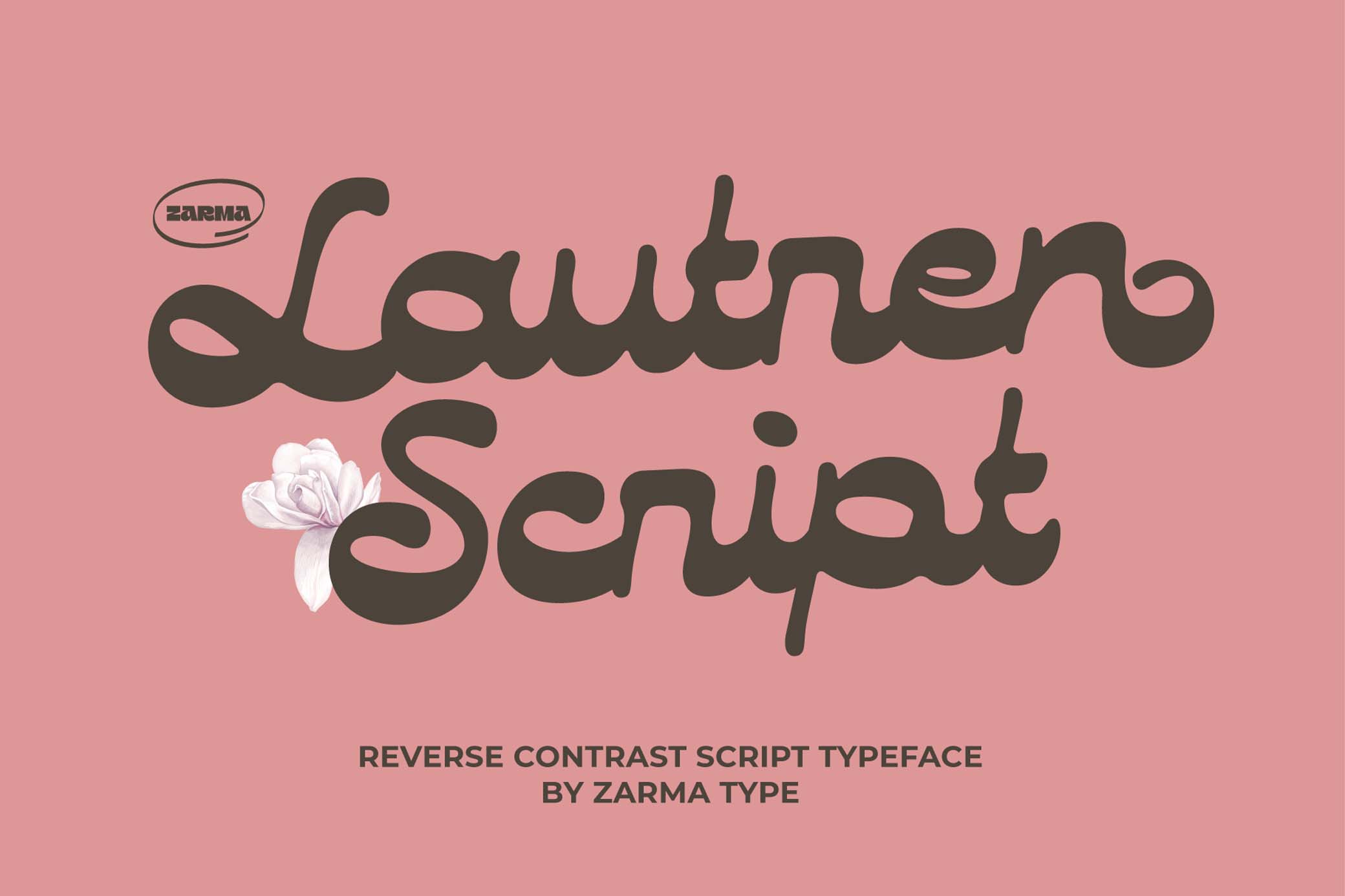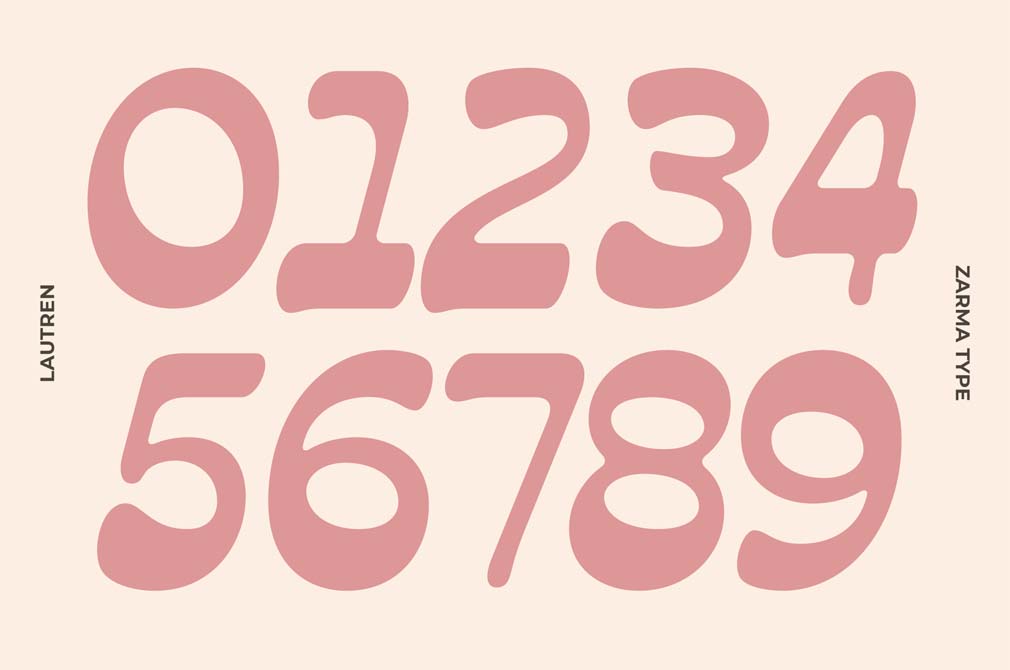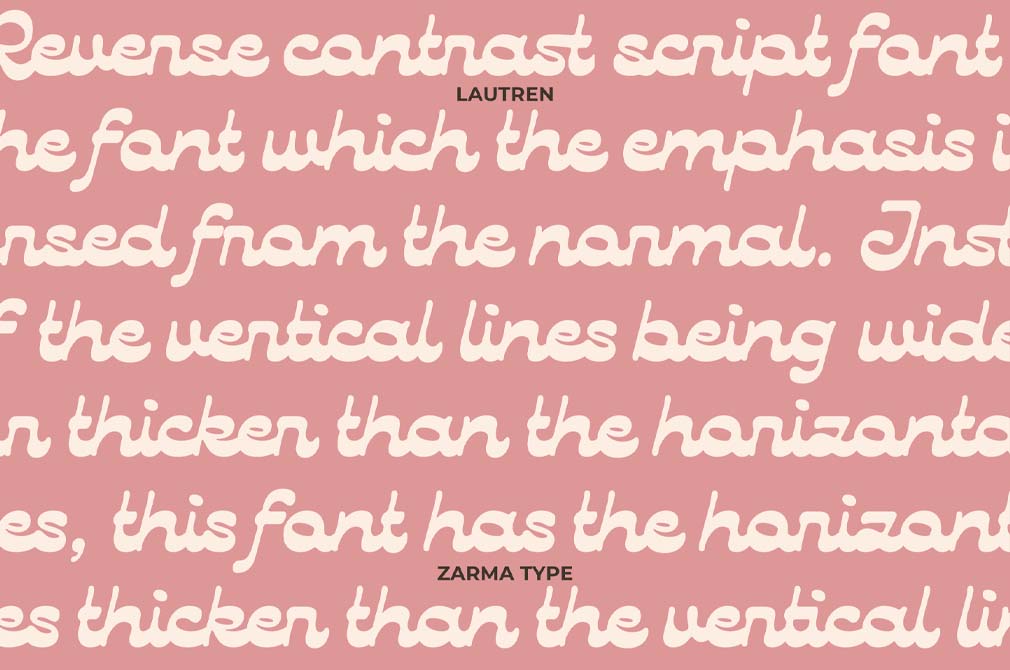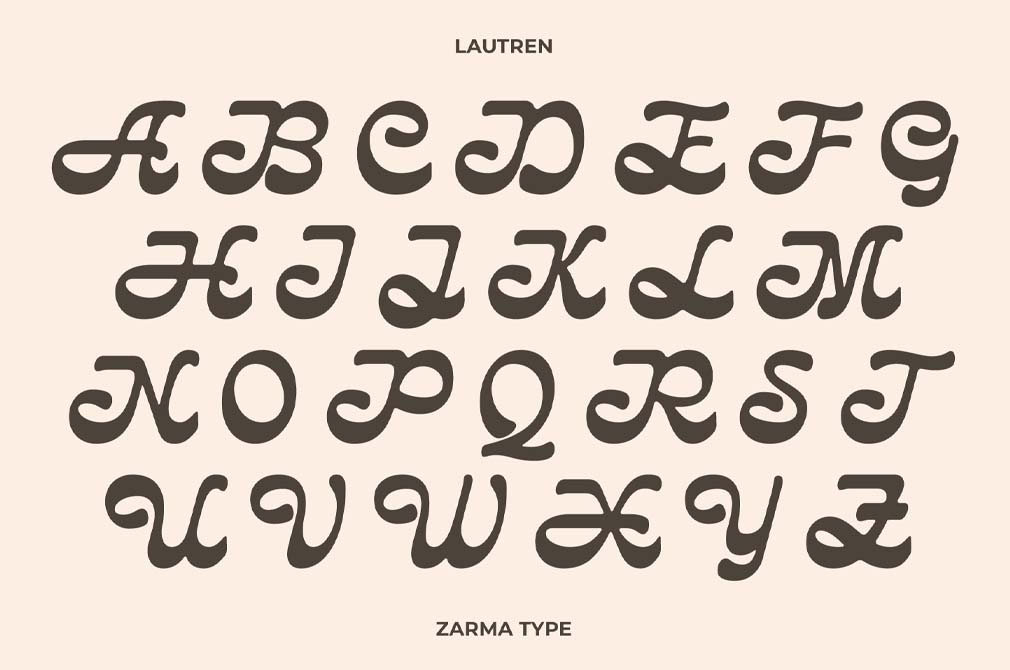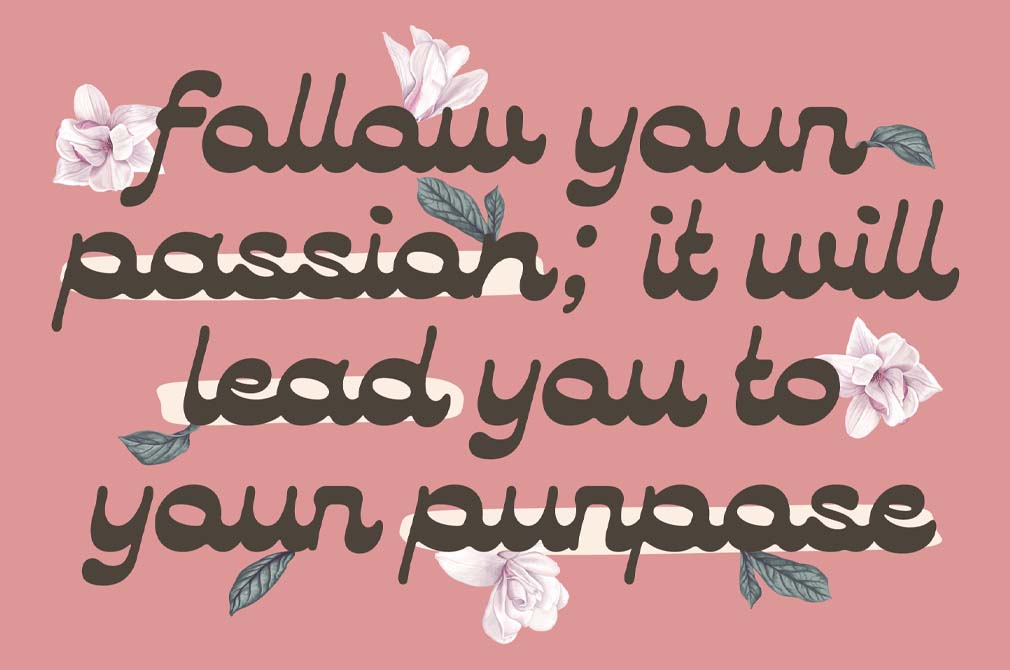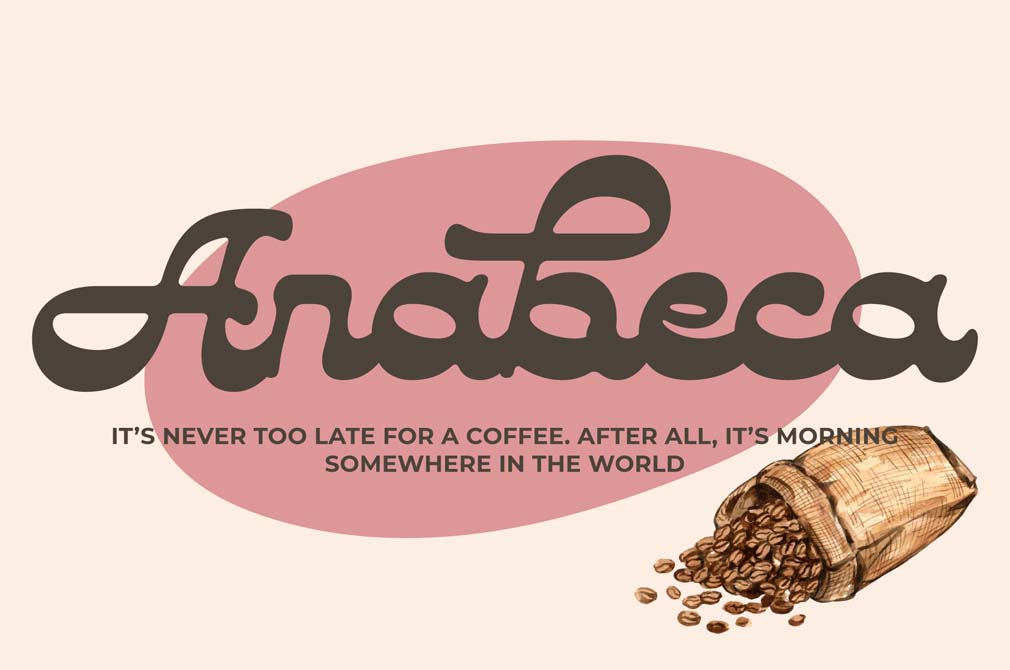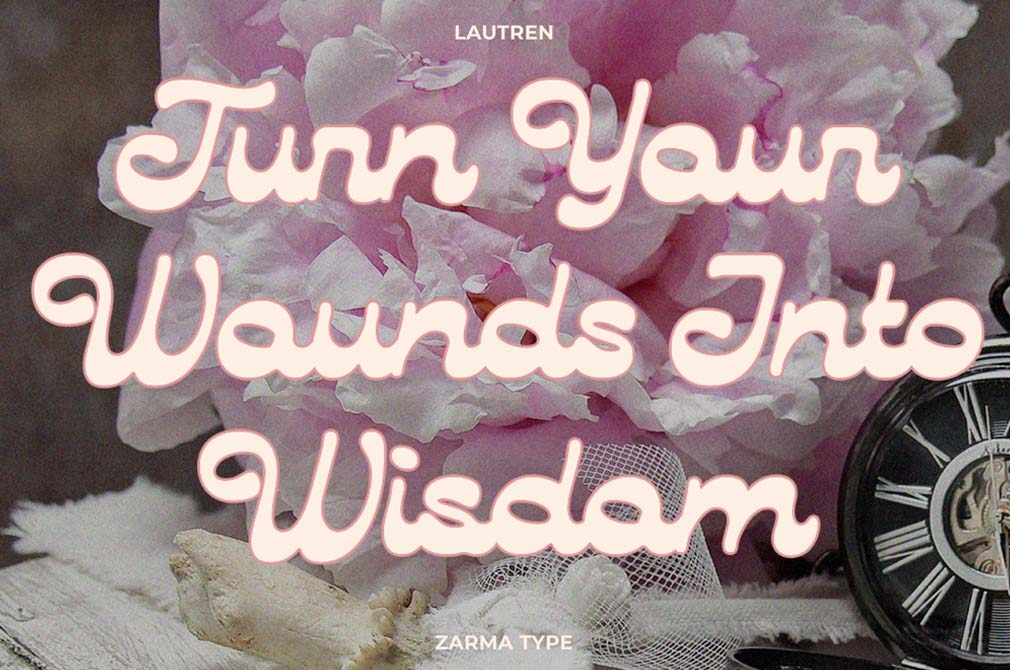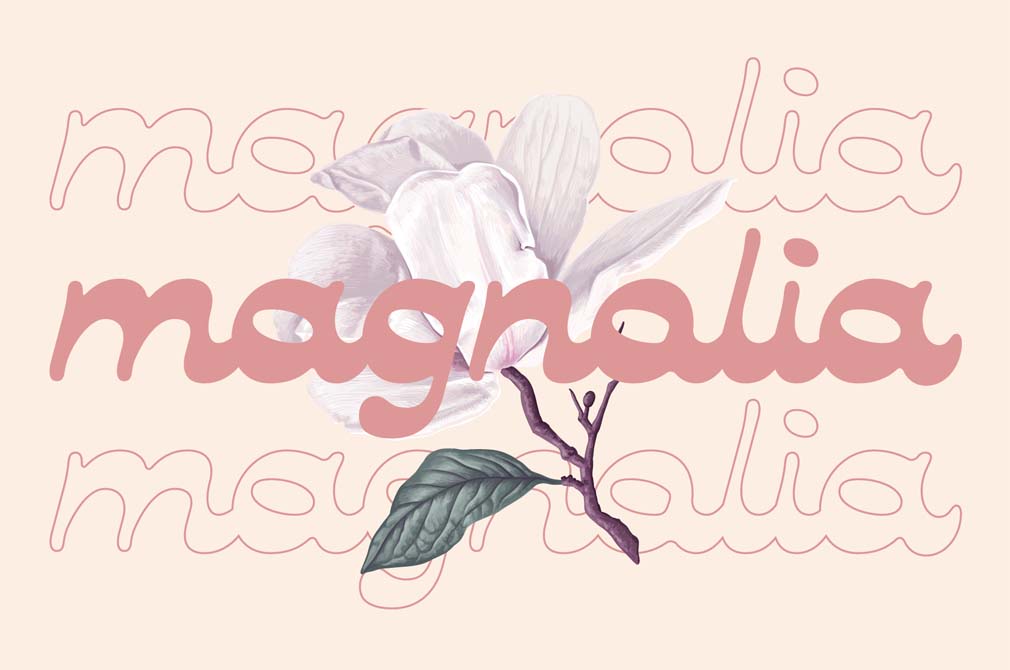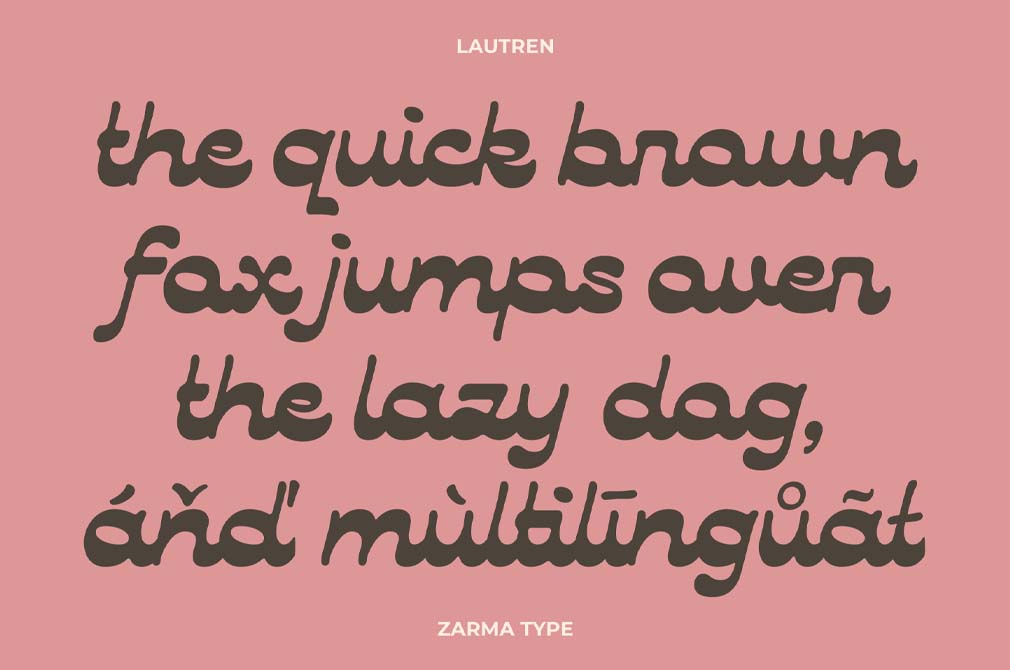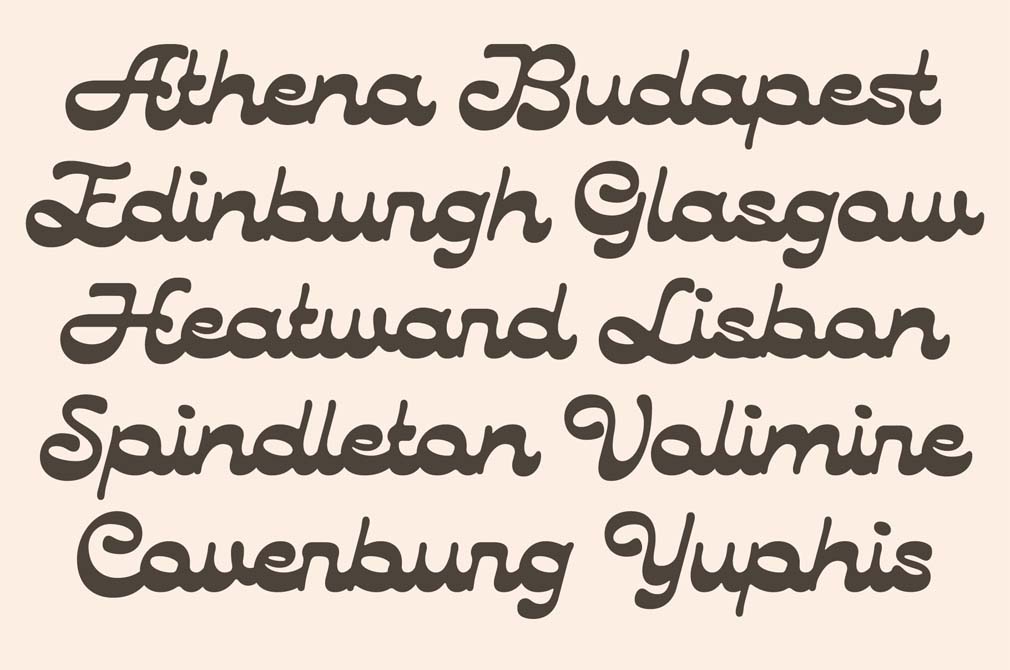
Lautren | Reverse Contrast Script
While everyone's trying to catch the Y2K wave, let's submerge ourselves in deeper retro typography with Lautren. It borrows some of the 50s aesthetics, sprinkles it with clean shapes of technical lettering, and adds some romance as a final touch.
It's not the best idea to merge multiple concepts inside one font as it risks getting stylistically messy. And yet, Lautren Script is the finest exception, allowing you to smoothly switch between retro and modern classy projects, like wedding invitations, logos, business cards, and packaging elements. It's an appealing addition to your Fonts tab and a true miracle worker. Lautren is created with a ton of OpenType features like contextual alternates, stylistic sets, ligatures, and swashes at the end of the letters. Not to mention a complete character set with multilingual support.